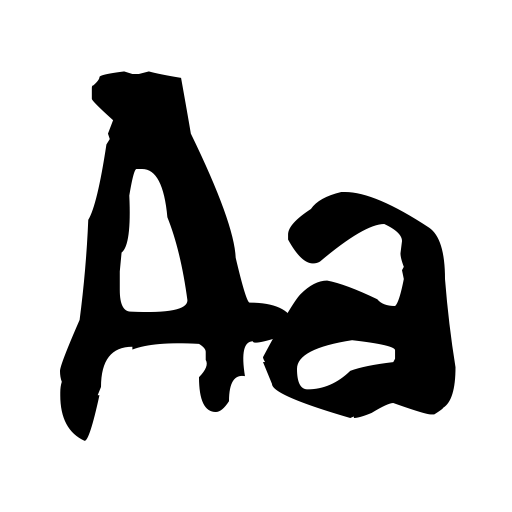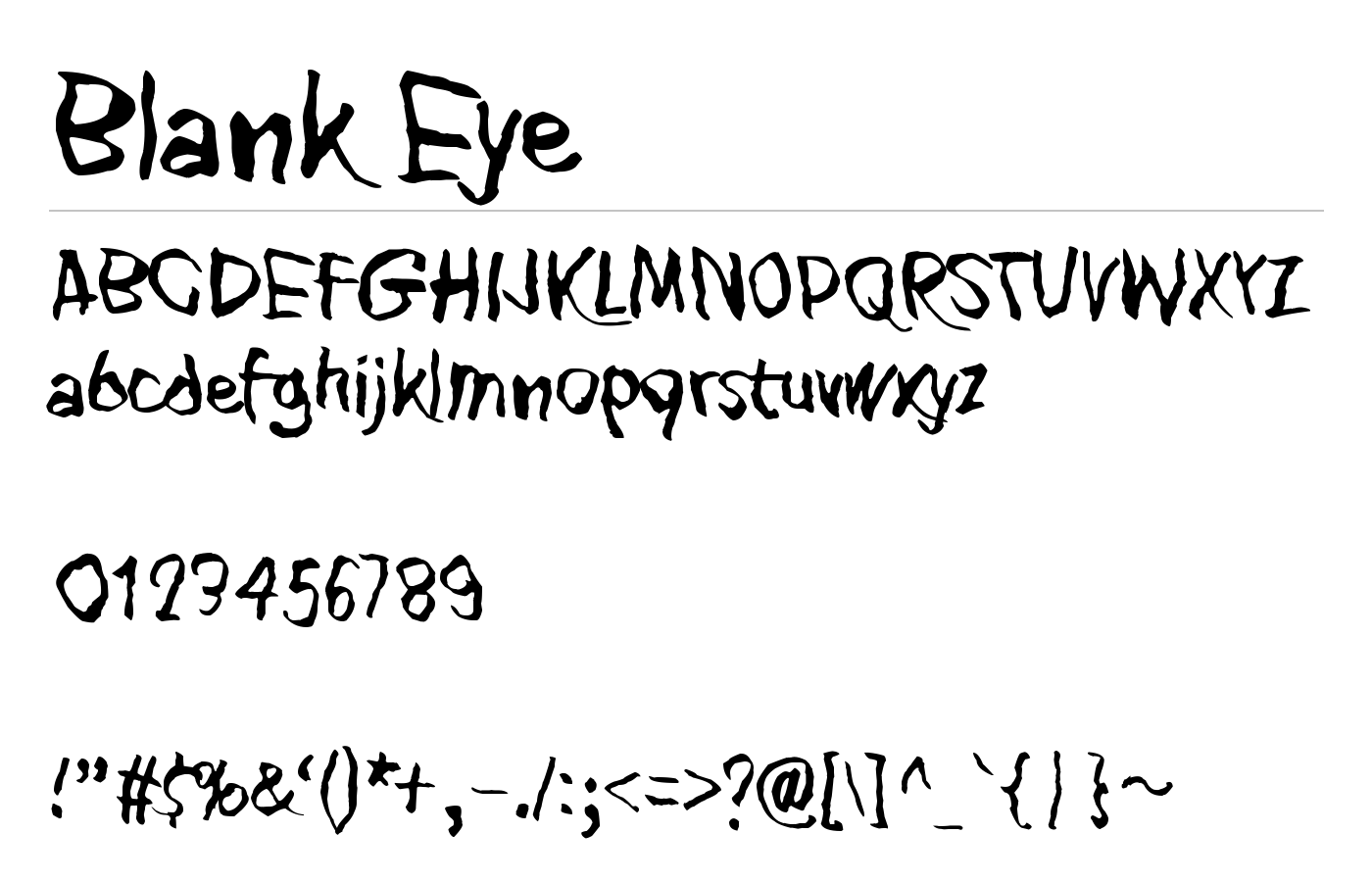
Blank Eye is a quirky, hand-drawn sans serif font with an uneven, textured appearance that evokes a casual, slightly eerie vibe. Its irregular letterforms and rough edges make it ideal for creative projects seeking a playful or unconventional look, such as posters, comics, or Halloween-themed designs. This font stands out in informal, artistic contexts where personality and uniqueness are key.
Blank Eye Font
About Blank Eye Font
| Font family | Blank Eye Font |